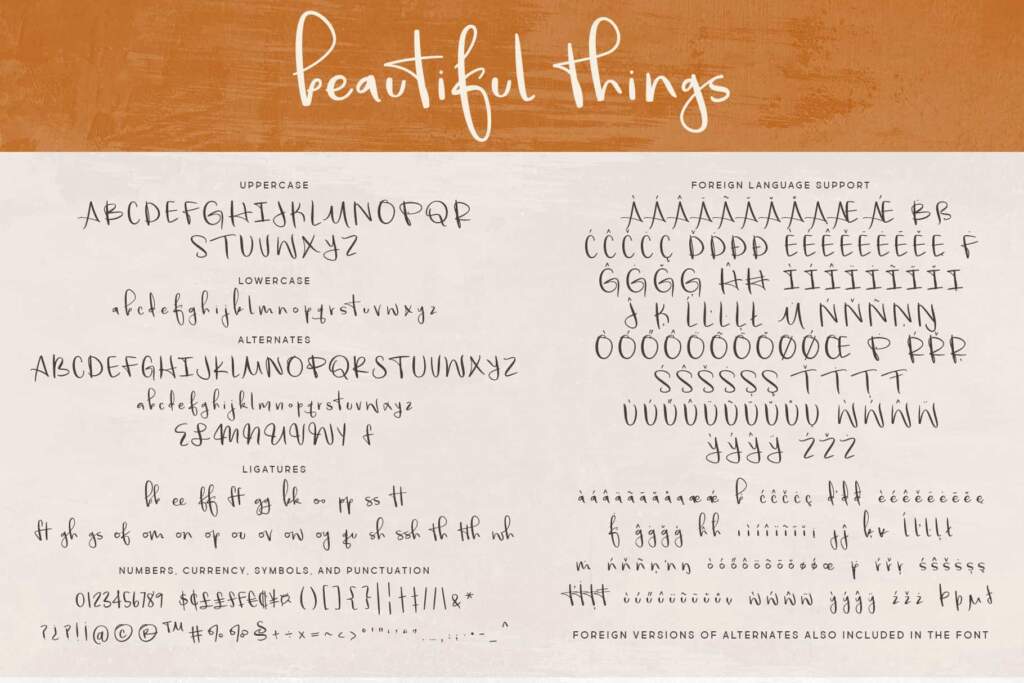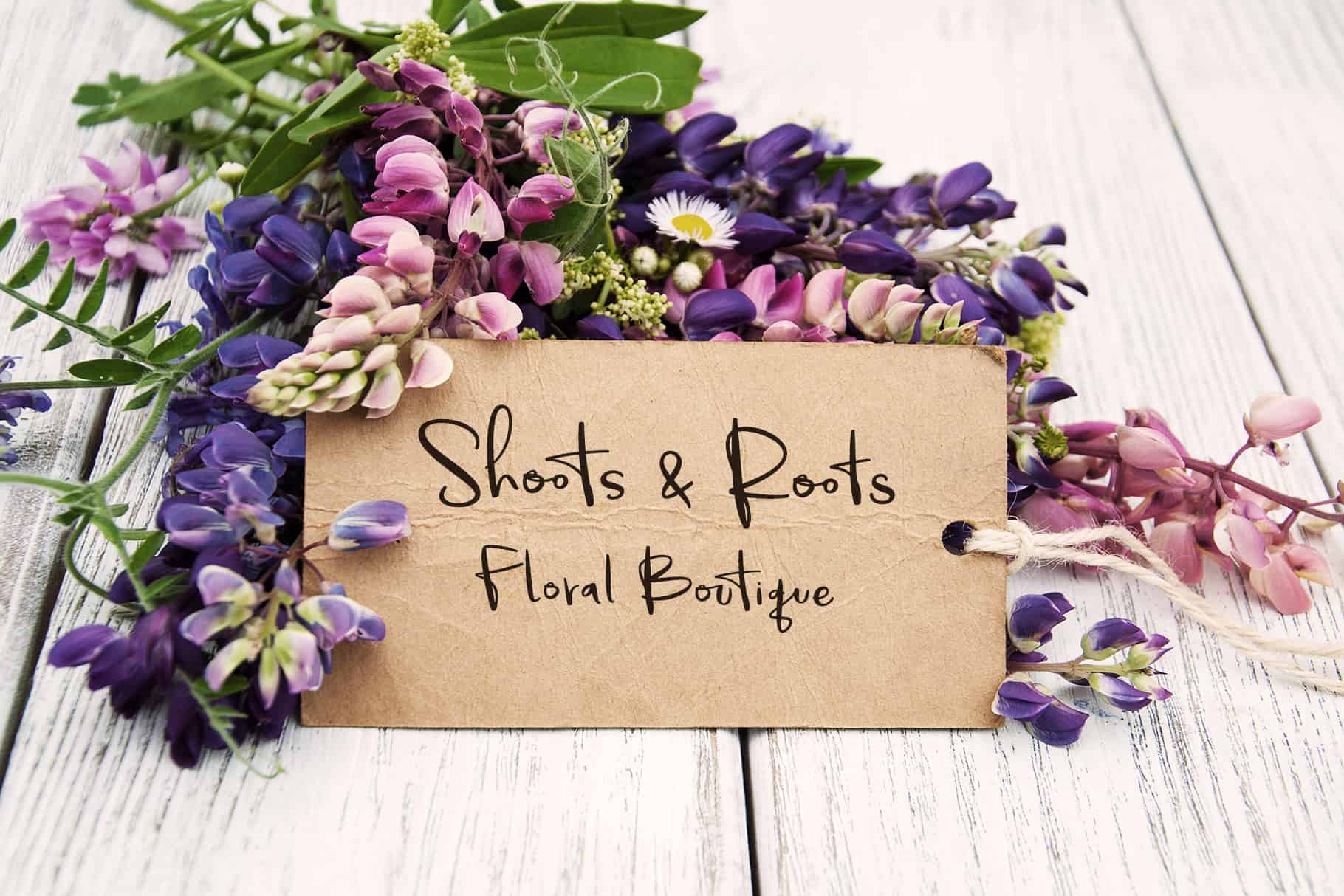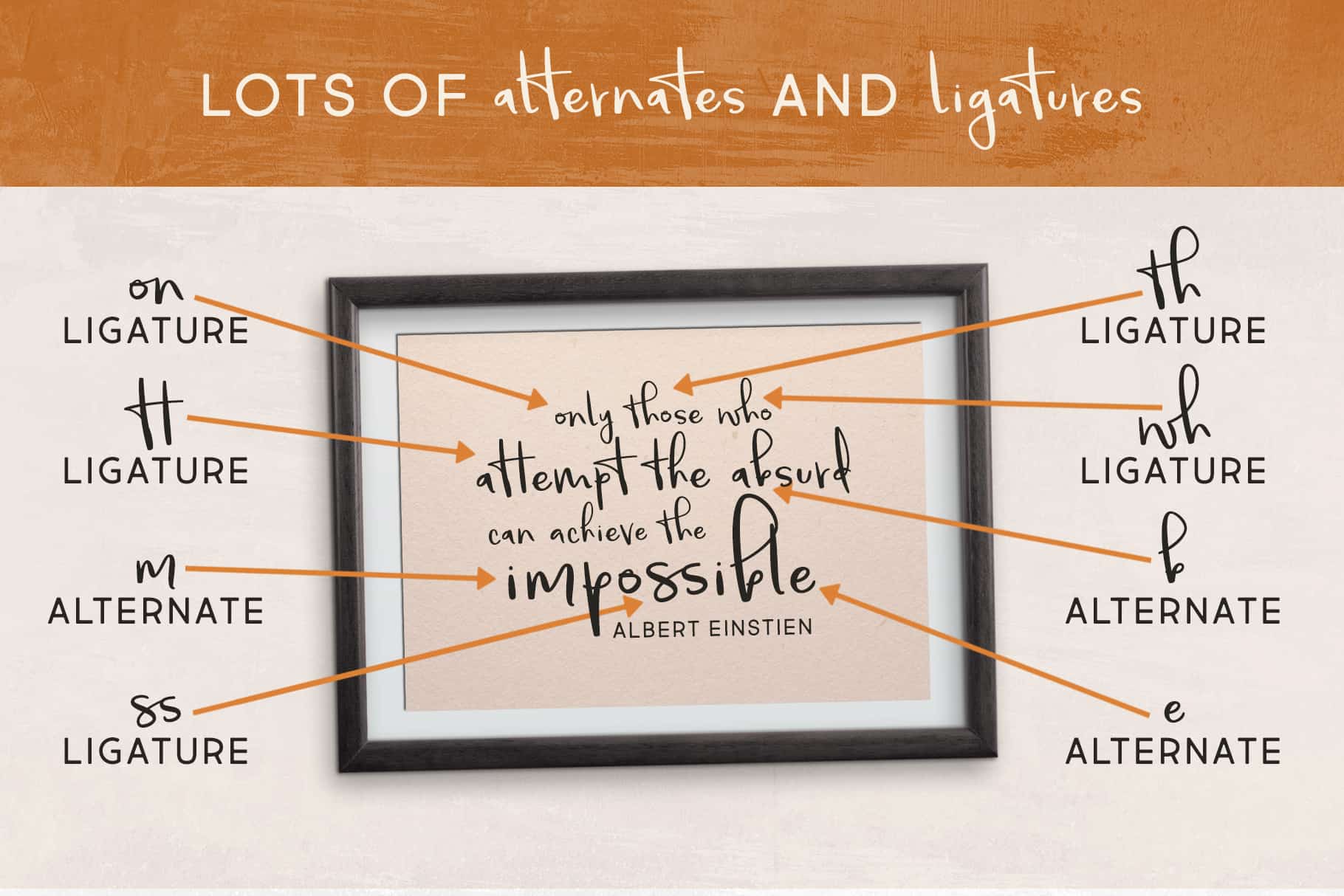
Beautiful Things
The Beautiful Things font is a wistful non-connecting script with sweeping ascenders and descenders and natural, flowing lines for an informal, yet elegant look, created in 2018 by Brittney Murphy design. Beautiful Mess contains over 700 glyphs, including foreign Latin characters, alternates and ligatures, giving you the ability to add a variation with a single font. Because of its extensive additional characters, the Beautiful Things font is great for a wide variety of images and projects, including logos, headlines, bylines, and more.